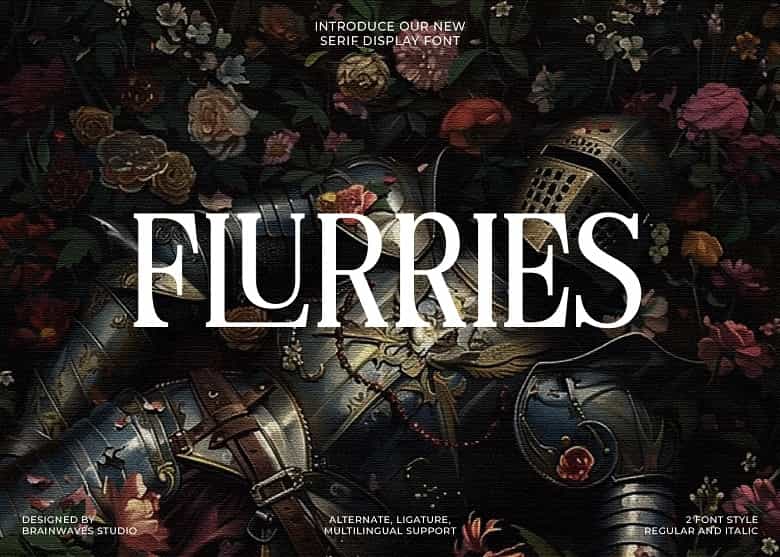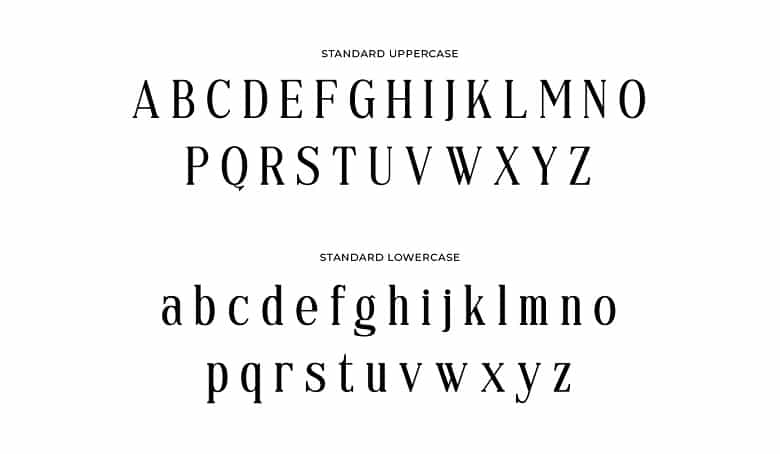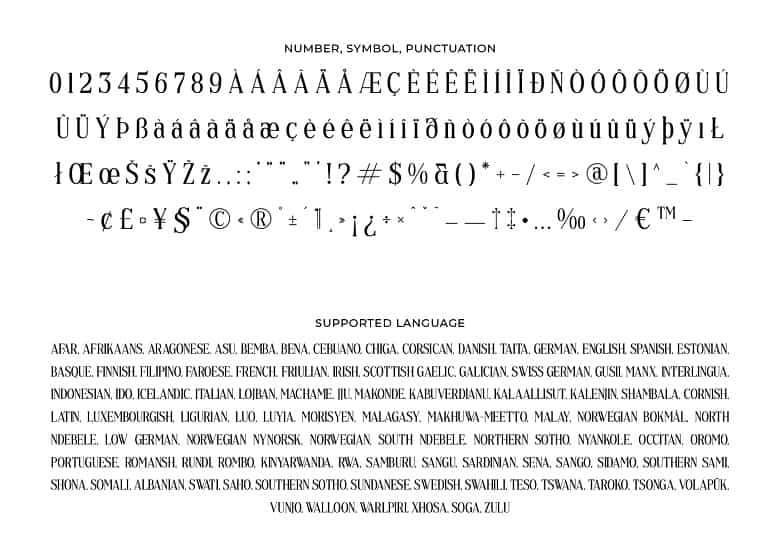
Flurries is a new serif typeface that is perfect for any number of projects as it has a bold look while remaining elegant. Whether you are working on the logo of luxury brands, headline writing, or trying to bring that extra element to your logos, Flurries will help.